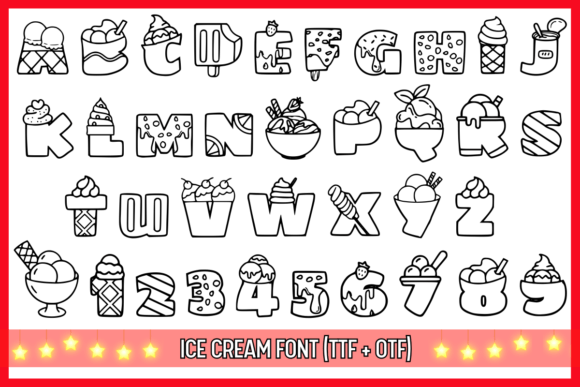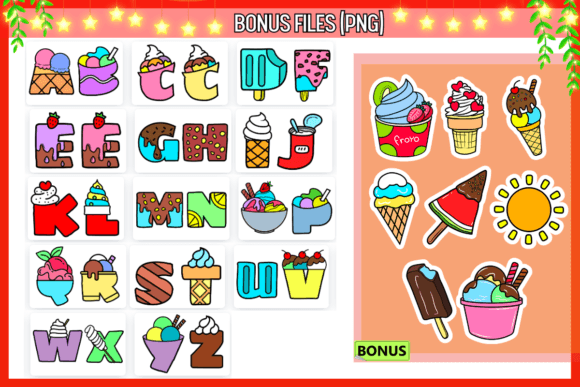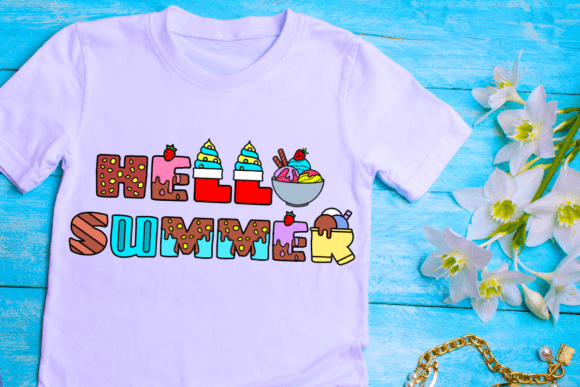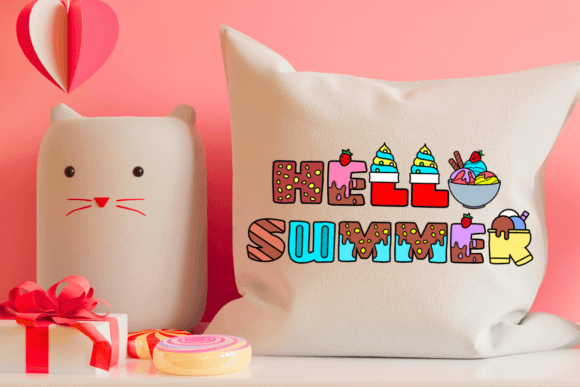
Summer Vibes in Every Letter
Have you ever stared at a blank canvas, waiting for that spark of creativity to strike? Maybe it was a sweltering summer day, and the idea of a cool treat suddenly hit you. That’s exactly what happened to me when I discovered the “Ice Cream” font – a playful decorative font where each letter looks like it’s made out of a delicious scoop of ice cream.
This fun and quirky font is perfect for summer-themed projects and playful designs. With its creamy textures, colorful sprinkles, and drips, it’s sure to bring a smile to anyone’s face. For designers, “Ice Cream Font” is a valuable addition to their toolkit, offering a unique way to add personality and whimsy to their work.
Whether you’re creating a birthday party invitation or a social media post, “Ice Cream Font” is sure to make your design pop. So why not give it a try and add a scoop of fun to your next project?
Ice Cream Font Key Features
- Size: The font family includes multiple weights and styles, ranging from Thin to Extra Bold, providing a wide range of design possibilities.
- Unique Characteristics: The font’s playful, whimsical design features rounded shapes and smooth lines, creating a friendly and approachable atmosphere in any design.
- Language Support: Ice Cream Font supports a wide range of languages, including Latin, Cyrillic, and Greek, making it a versatile choice for global designs.
- Customizability: The font’s OpenType features allow for advanced typographic control, including ligatures, swashes, and contextual alternates, enabling designers to create unique and customized designs.
Ice Cream Font Review
Overall, I found “Ice Cream Font” to be a fun and quirky addition to any design project. Here are some of its strengths: ✨
- Unique and playful design, perfect for adding a touch of whimsy to your work.
- Works well for titles, headings, and other display text.
- Includes a variety of weights and styles, making it easy to customize for different uses.
- Easy to read, even at smaller font sizes.
However, I did encounter some limitations: ⚠️
- May not be suitable for formal or professional projects, as its playful nature may not be taken seriously.
- Some characters may be difficult to read or distinguish, especially in certain font sizes or styles.
- Lacks a clear and consistent line height, which can affect text flow and readability.
In terms of overall impression, I would say that “Ice Cream Font” is a great choice for projects that require a lighthearted and playful tone. While it has some limitations, its unique design and easy customization make it a fun and versatile addition to any designer’s toolkit.
Some tips for getting the most out of the Ice Cream Font include:
- Using it to create playful and eye-catching headings.
- Pairing it with bold and colorful graphics for a fun and playful look.
- Using it in social media posts and graphics to stand out from the crowd.
Alternatives to Ice Cream Font
Great Vibes is a modern, elegant script font ideal for creating a luxurious and sophisticated look. It’s perfect for branding, invitations, and any design that requires a touch of elegance. Great Vibes has a more refined and sophisticated feel compared to Ice Cream Font, which is more playful and casual.
Carolyna Pro is a stylish and modern script font that’s perfect for designers who want to add a touch of sophistication to their designs. It’s ideal for branding, advertising, and any design that requires a high-end feel. Carolyna Pro has a more polished and refined feel compared to Ice Cream Font, which is more whimsical and playful.
Curalee
Curalee is a beautiful and elegant script font that’s perfect for designers who want to create a luxurious and sophisticated look. It’s ideal for branding, invitations, and any design that requires a touch of elegance. Curalee has a more classic and timeless feel compared to Ice Cream Font, which is more modern and trendy.